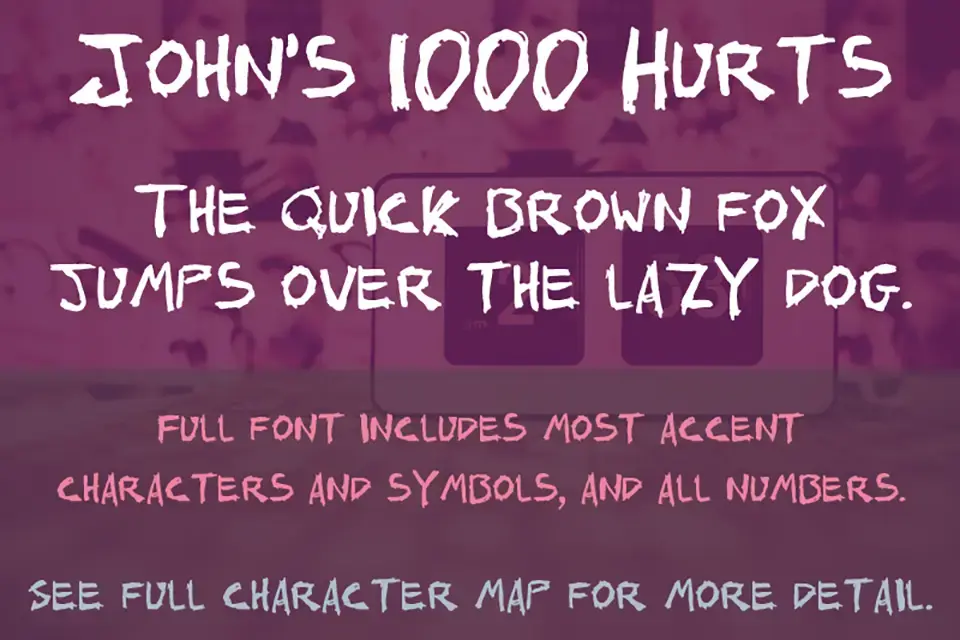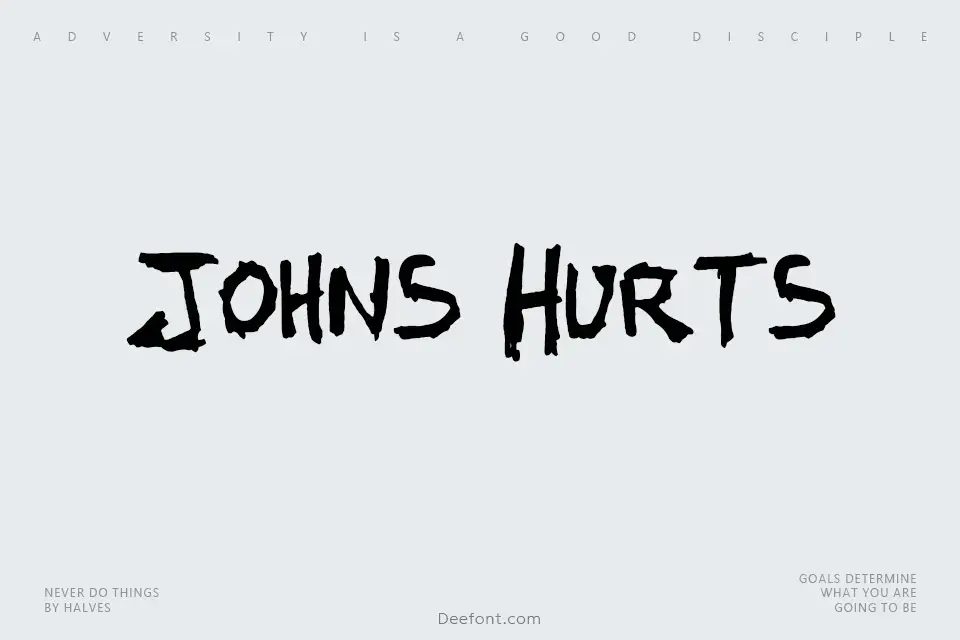
John’s 1000 Hurts Font
John’s 1000 Hurts is a strikingly bold handwritten display font captured from raw, high-school-inspired sketches. Its rough, distressed letterforms and irregular strokes deliver authentic grungy aesthetics ideal for headlines, horror movie posters, Halloween designs, and edgy branding. The font’s casual, hand-drawn quality conveys youthful angst and creative rebellion, making it perfect for music album covers, alternative marketing materials, and eye-catching display typography that demands attention.